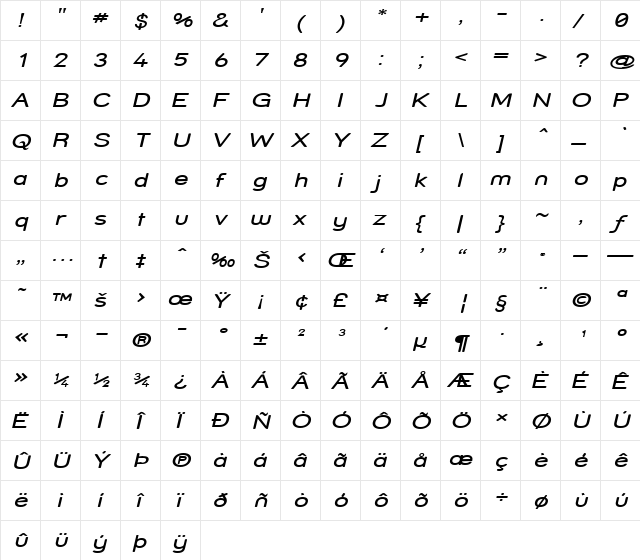
Street - Compressed Italic
Design Context for Street - Compressed Typeface
Street - Compressed takes a measured approach to typography — its balanced proportions and neutral character make it a reliable workhorse for both digital and print work. The slanted form adds forward momentum and visual energy.
Pro Tip: Use Street - Compressed for emphasis, pull quotes, and subheadings where its slanted energy can add rhythm to the layout.